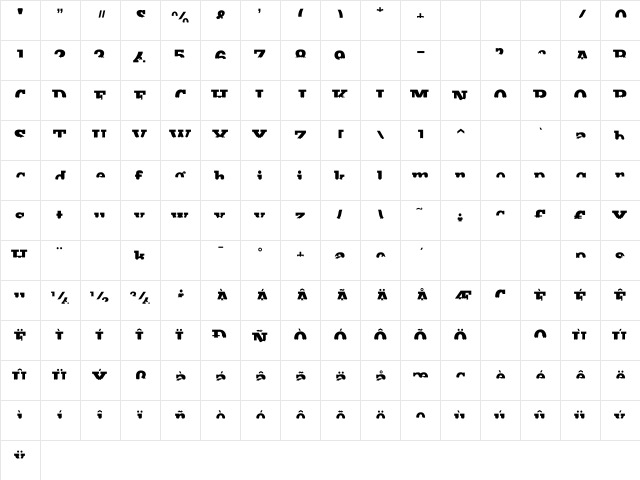
Main Strike Half Fill Regular
Design Context for Main Strike Half Fill Typeface
Main Strike Half Fill is a composed and adaptable typeface that performs quietly and consistently across a wide range of design contexts.
Pro Tip: Use Main Strike Half Fill in both headline and body roles to test its range before committing to a single application.